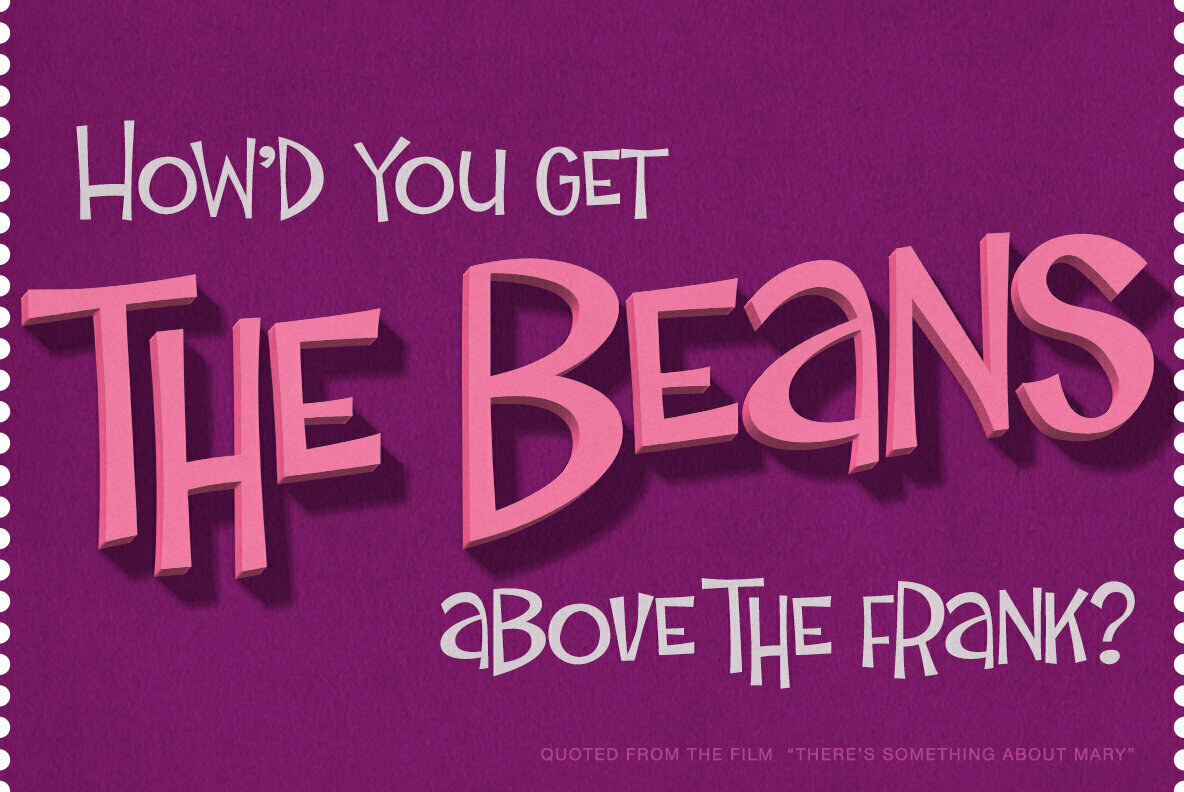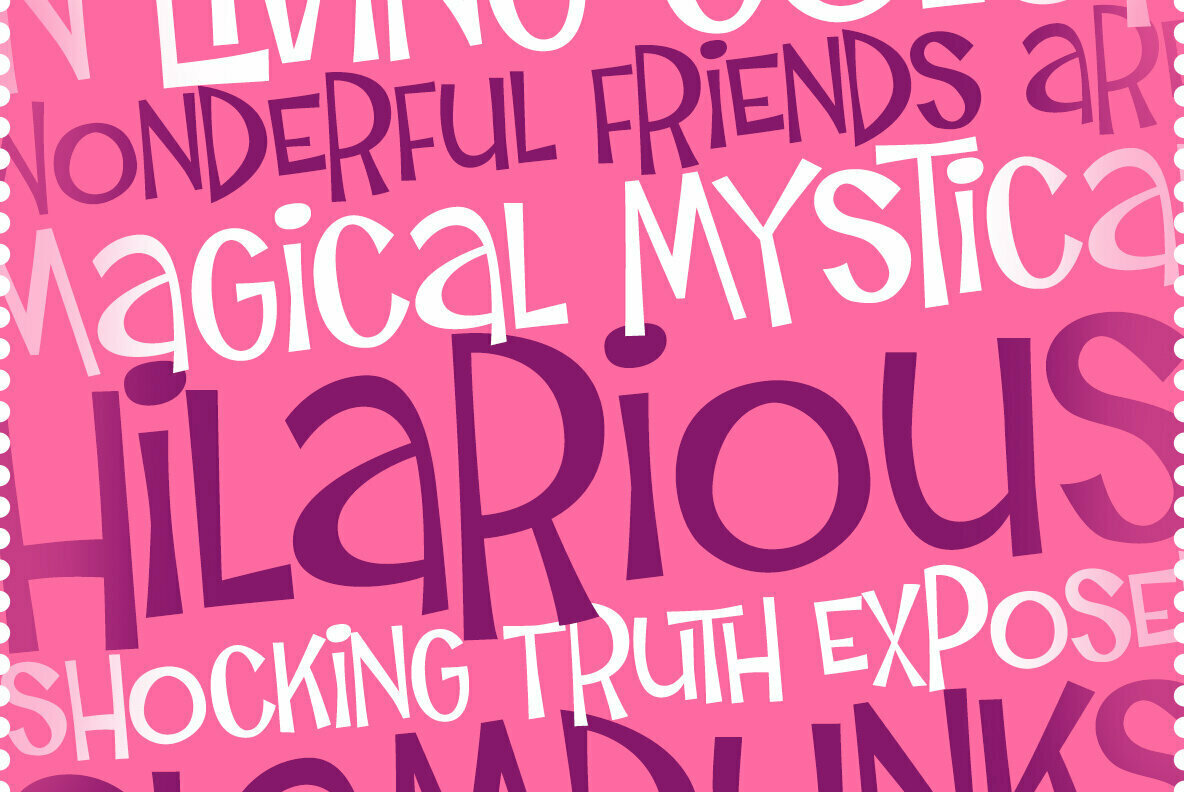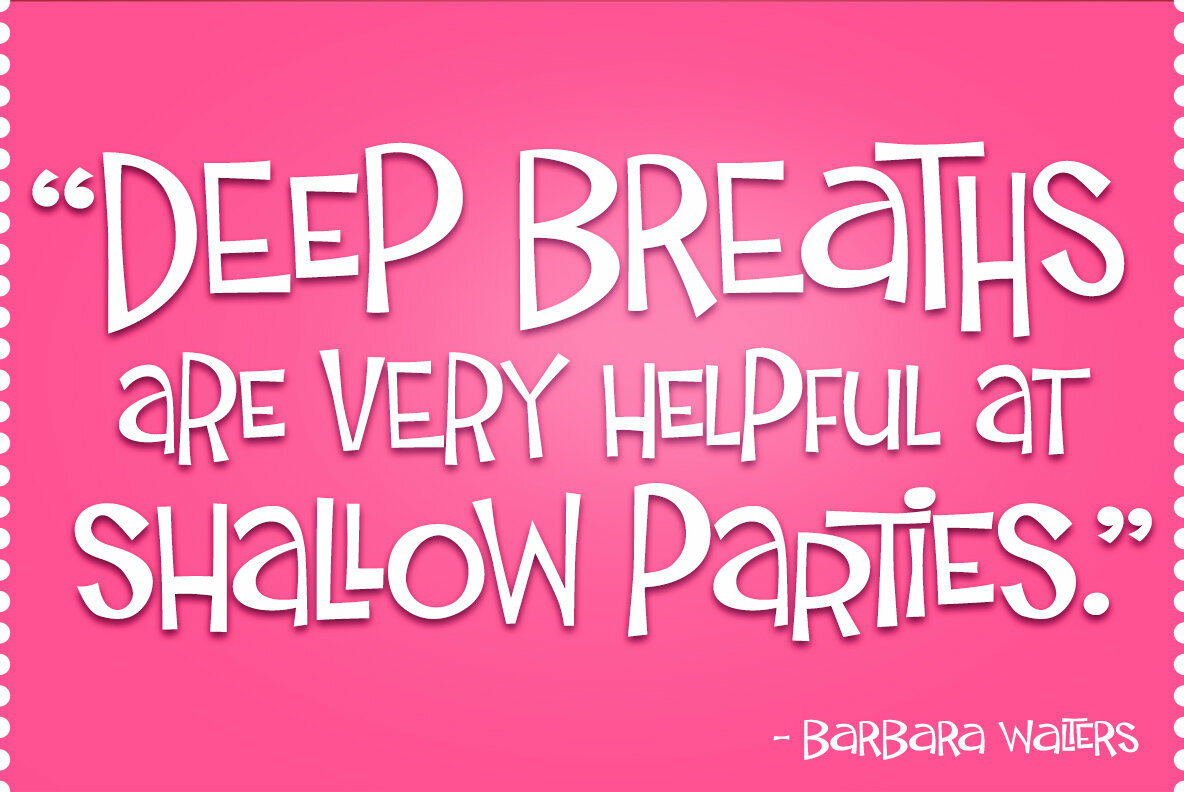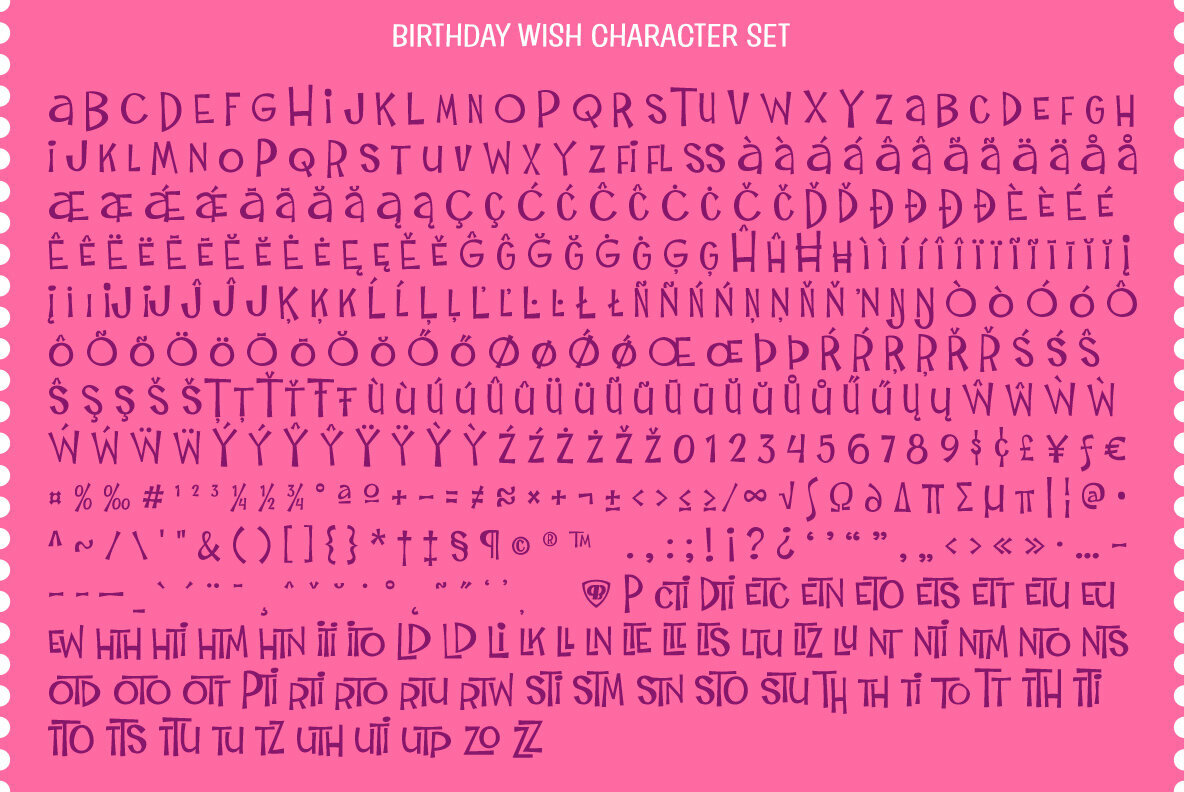
Birthday Wish PB
Birthday Wish is a totally off-kilter sans-serif font inspired by a late 70's birthday greeting card. Much like a typographic drunken stumble, this font wonderfully and awkwardly fumbles across designs, surprising with each letter typed.
With a pseudo unicase character set, and offbeat letter weighting, Birthday Wish is fun to typeset with, with a cluster of ligature combinations that add to the quirky playfulness. You’ll find this Birthday Wish is a typesetting ride of a font. Try typing standard, all caps, or all lowercase for even more visual variety.